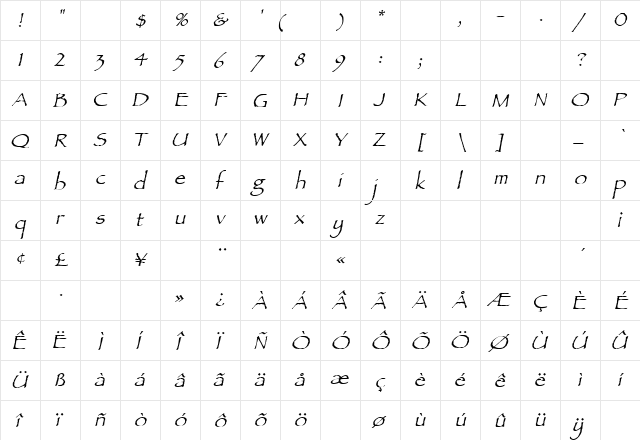
AncientScript Italic
Design Context for AncientScript Typeface
AncientScript brings a calligraphic fluidity to the page — its connecting strokes and expressive curves give it an unmistakably human quality.
Font Pairing: Combine AncientScript with a simple geometric sans for maximum contrast — the tension between flowing curves and clean structure is a classic typographic pairing.
Pro Tip: Use AncientScript for short runs of text — names, titles, or taglines. Extended body copy in script faces tires the eye quickly.